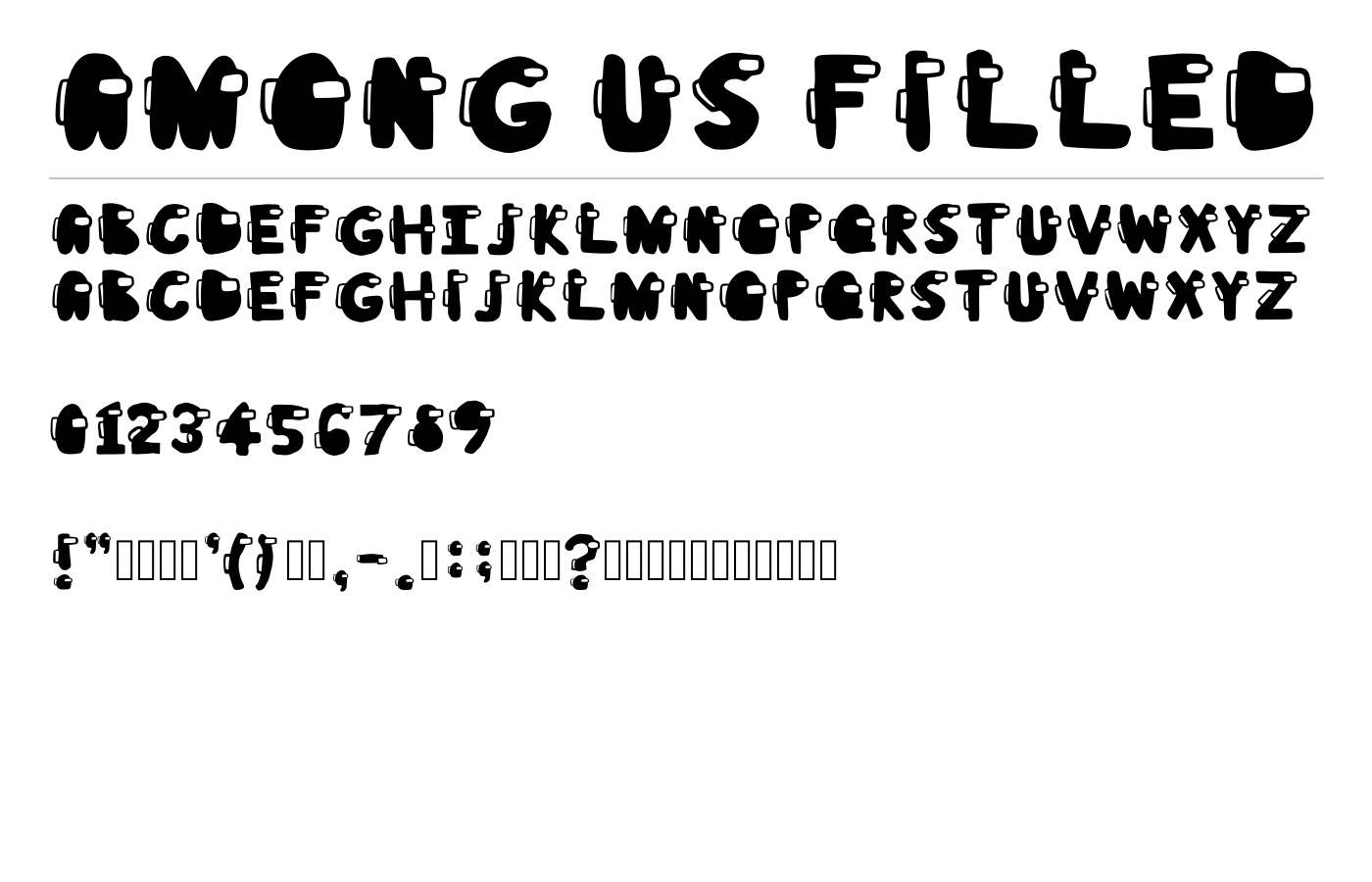
Among Us Filled Font is a bold, playful sans-serif typeface inspired by the popular game character shapes, featuring thick, rounded forms with a fun, cartoonish personality. The font’s chunky, compact letters with minimal stroke contrast and quirky details make it ideal for children's content, game-related branding, or casual, eye-catching headlines. It works best in informal designs that aim to convey friendliness and creativity.
Among Us Filled Font